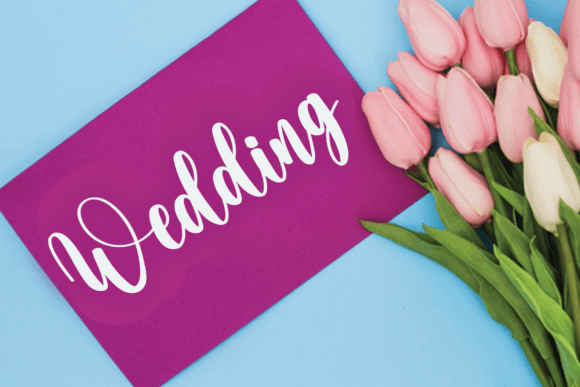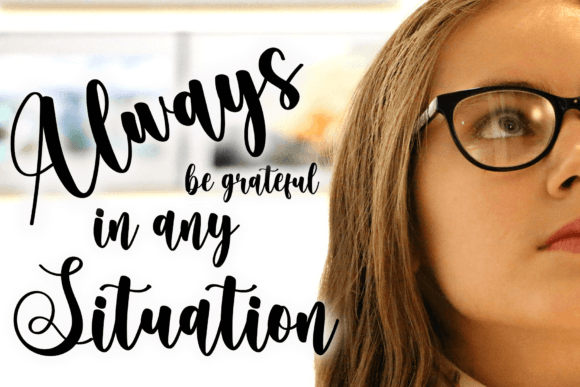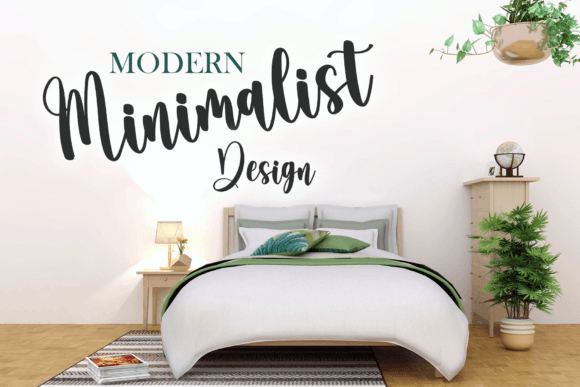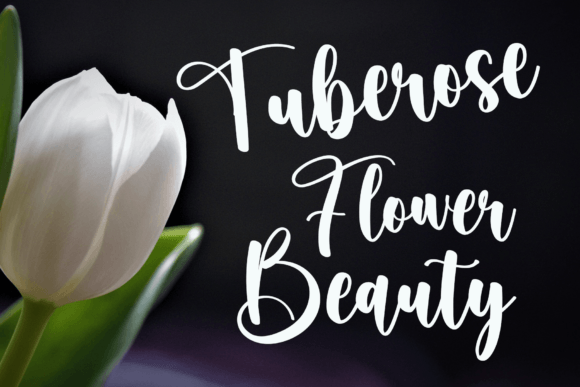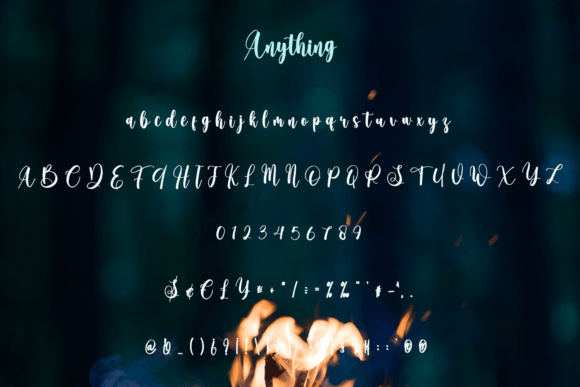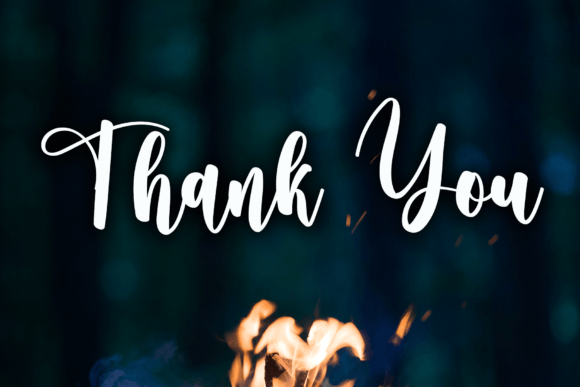
Introducing Anything Font: Elevate Your Designs with a Touch of Elegance
Are you on the hunt for a font that exudes class, elegance, and modernity? Look no further than Anything Font, a simple yet quirky-looking handwritten font that’s perfect for a wide range of design projects. From logos and branding to invitations, stationery, and social media posts, Anything Font is the perfect addition to your design toolkit.
A Font that Defies Convention
Anything Font is a unique and versatile typeface that combines the best of both worlds: a simple, clean design with a quirky, handwritten feel. This distinctive blend of characteristics makes it an excellent choice for designers and crafters looking to add a touch of personality to their work. Whether you’re creating a logo, designing a wedding invitation, or crafting a social media post, Anything Font is sure to make your design stand out from the crowd.
One of the best things about Anything Font is its incredible versatility. This font can be used for a wide range of design projects, including:
- Logos and branding: Create a unique and memorable brand identity with Anything Font. Its elegant and modern design makes it perfect for businesses looking to establish a strong visual presence.
- Invitations and stationery: Add a touch of class and sophistication to your invitations, greeting cards, and stationery with Anything Font.
- Wedding designs: Make your wedding designs truly special with Anything Font. Its quirky and romantic feel makes it perfect for wedding invitations, programs, and other wedding-related materials.
- Social media posts: Elevate your social media presence with Anything Font. Use it to create eye-catching posts, stories, and graphics that will engage your audience and set you apart from the competition.
Why Choose Anything Font?
So why should you choose Anything Font for your design projects? Here are just a few reasons:
- Unique and distinctive: Anything Font is a one-of-a-kind typeface that’s sure to make your designs stand out from the crowd.
- Elegant and modern: With its clean and sophisticated design, Anything Font is perfect for designers and crafters looking to create modern and elegant designs.
- Versatile: Whether you’re creating a logo, designing a wedding invitation, or crafting a social media post, Anything Font is the perfect choice.
- Easy to use: Anything Font is incredibly easy to use, making it perfect for designers and crafters of all skill levels.
Tips for Using Anything Font
Here are a few tips for getting the most out of Anything Font:
- Experiment with different sizes and colors: Anything Font looks great in a variety of sizes and colors, so don’t be afraid to experiment and find the perfect combination for your design.
- Pair it with other fonts: Anything Font pairs well with a wide range of other fonts, so feel free to get creative and experiment with different font combinations.
- Use it consistently: To create a strong brand identity, use Anything Font consistently across all of your design materials.